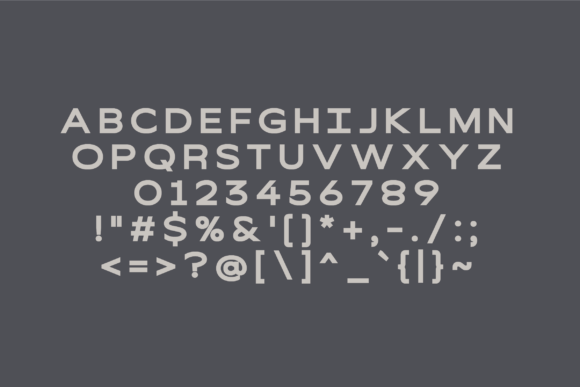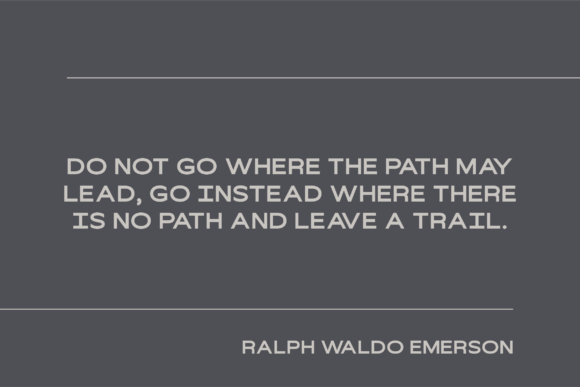
Introducing Gradebookz Font: The Ultimate Choice for Bold and Modern Designs
In the world of design, typography plays a crucial role in conveying messages, expressing creativity, and building brand identities. With numerous fonts available, finding the perfect one that combines style, clarity, and impact can be a daunting task. However, if you’re looking for a bold, modern, and versatile font that can elevate your designs, look no further than Gradebookz Font.
What is Gradebookz Font?
Gradebookz is a bold, modern, all-caps sans-serif font designed to create clean, impactful visuals. Its sleek and minimalist design makes it perfect for a wide range of applications, including logos, headlines, posters, packaging, and digital content. Built for clarity and style, this typeface brings a strong, confident look to any design, making it an ideal choice for designers and crafters seeking to make a statement.
Key Features of Gradebookz Font
- Bold and Modern Design: Gradebookz boasts a bold and modern aesthetic that is sure to grab attention. Its all-caps sans-serif design ensures that your message is conveyed with clarity and impact.
- Clean and Minimalist: The font’s clean and minimalist design makes it perfect for a wide range of applications, from logos and headlines to posters and digital content.
- Highly Versatile: Gradebookz is designed to be highly versatile, making it suitable for various design projects, including branding, tech, fashion, and creative endeavors.
- Standard Latin Characters, Punctuation, and Numerals: The font includes standard Latin characters, punctuation, and numerals, ensuring that you have everything you need to create professional-looking designs.
- Easy to Use: Gradebookz is simple to use, allowing you to focus on the creative aspect of your design project rather than struggling with complex typography.
Gradebookz Font is an excellent choice for designers and crafters seeking to add a professional touch to their work without compromising on style. Whether you’re working on a branding project, creating digital content, or designing packaging, this font is sure to deliver. Its bold and modern design ensures that your message is conveyed with confidence, while its clean and minimalist aesthetic makes it easy to pair with other design elements.
Applications of Gradebookz Font
The versatility of Gradebookz Font makes it suitable for a wide range of applications, including:
- Logos and Branding: Create a strong and confident brand identity with Gradebookz Font.
- Headlines and Posters: Grab attention with bold and impactful headlines and posters.
- Packaging Design: Elevate your packaging design with a modern and clean aesthetic.
- Digital Content: Enhance your digital content, including social media graphics, blog posts, and website headers.
- Fashion and Tech: Add a professional touch to your fashion and tech designs with Gradebookz Font.
Why Choose Gradebookz Font?
With so many fonts available, why choose Gradebookz Font? Here are a few compelling reasons:
- Unique and Impactful Design: Gradebookz Font offers a unique and impactful design that sets it apart from other fonts.
- Highly Versatile: The font’s versatility makes it suitable for a wide range of applications and design projects.
- Easy to Use: Gradebookz Font is simple to use, allowing you to focus on the creative aspect of your design project.
- Professional Results: With Gradebookz Font, you can achieve professional-looking results without spending hours on typography.
In conclusion, Gradebookz Font is an excellent choice for designers and crafters seeking a bold, modern, and versatile font for their design projects. Its clean and minimalist design, combined with its highly versatile nature, makes it perfect for a wide range of applications. Whether you’re working on a branding project, creating digital content, or designing packaging, Gradebookz Font is sure to deliver professional-looking results with a strong and confident look.